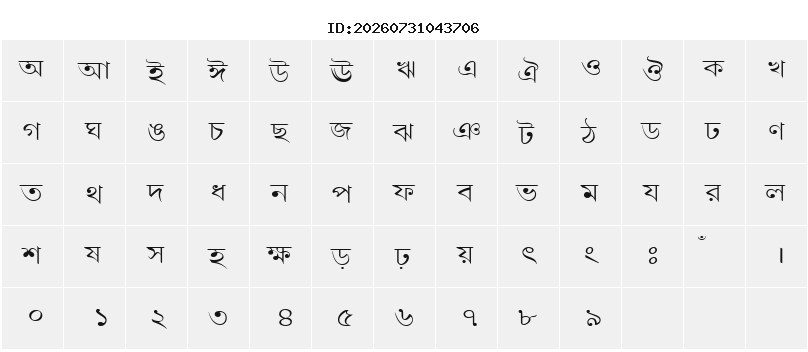
About LipiExpand.ttf
LipiExpand.ttf is a modern, elegant sans-serif font designed for ultimate readability and visual harmony. Perfect for branding, headlines, web design, and print materials.